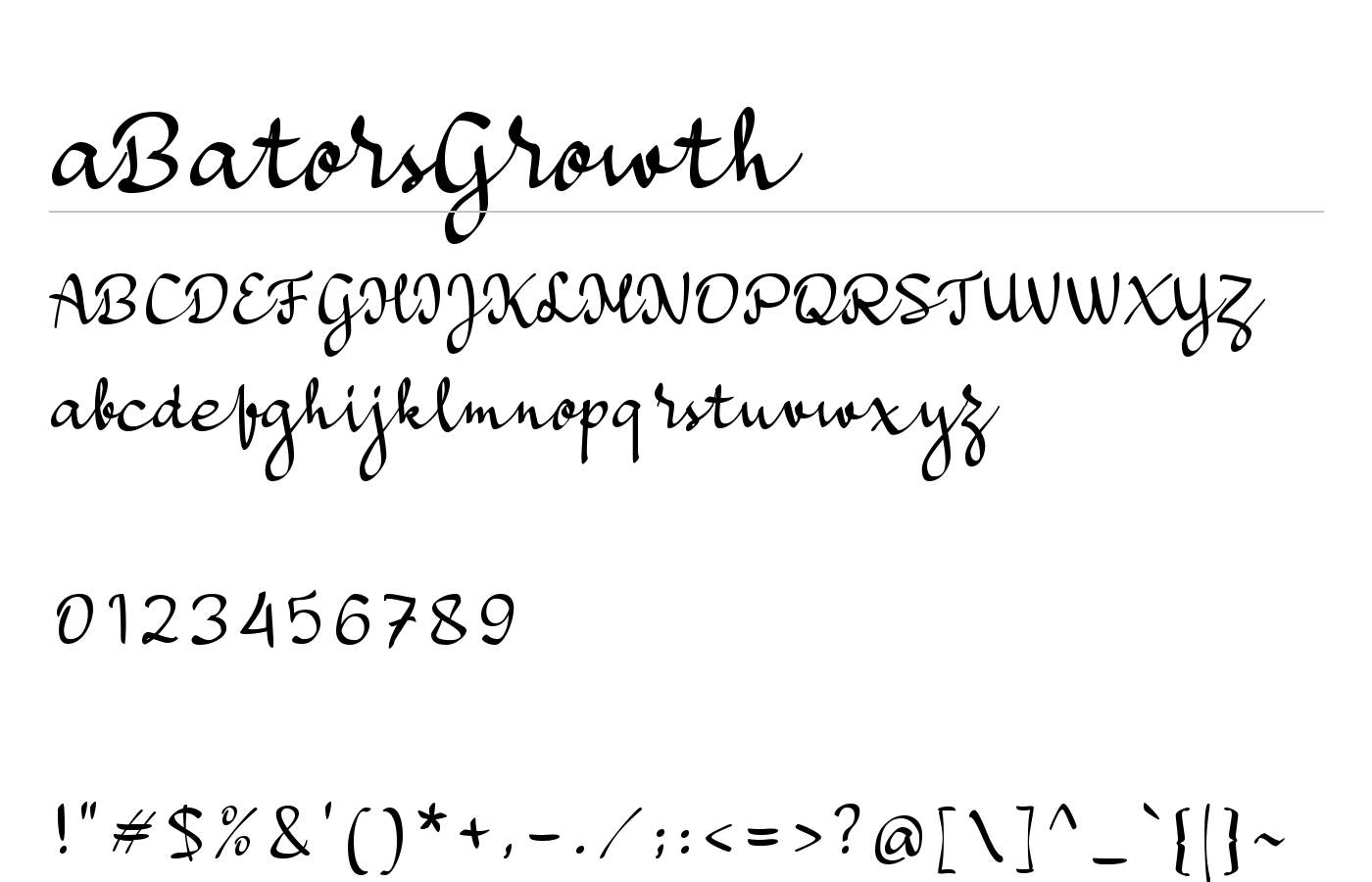
aBatorsGrowth is a lively, handwritten script font with a smooth and flowing style that feels personal and inviting. Its moderate contrast and natural curves give it a playful yet elegant flair, making it perfect for creative projects, branding, and stylish invitations where a warm, approachable tone is desired. This font shines in designs that want to convey friendliness and charm with a handcrafted touch.
aBatorsGrowth Font
About aBatorsGrowth Font